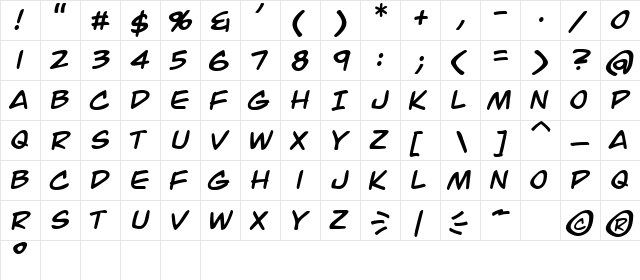
Jack Armstrong Italic
Design Context for Jack Armstrong Typeface
Jack Armstrong takes a measured approach to typography — its balanced proportions and neutral character make it a reliable workhorse for both digital and print work. Its italic angle brings a sense of urgency and motion to the letterforms.
Pro Tip: Use Jack Armstrong for emphasis, pull quotes, and subheadings where its slanted energy can add rhythm to the layout.